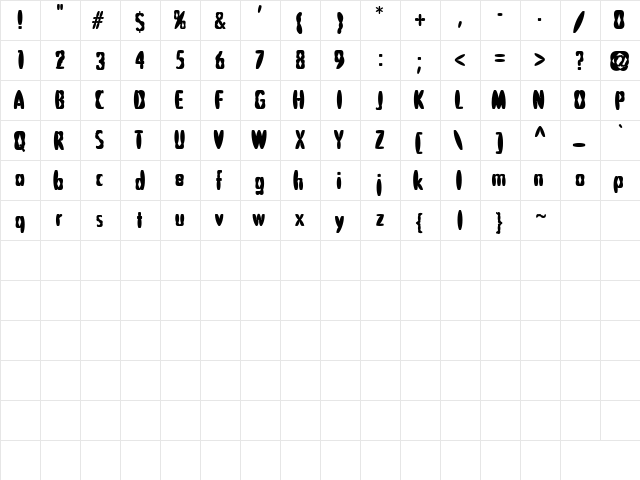
PuffedRiceBlack Regular Font Preview
PuffedRiceBlack Regular
PuffedRiceBlack Regular Font Details
Design Context for PuffedRiceBlack Typeface
PuffedRiceBlack is a composed and adaptable typeface that performs quietly and consistently across a wide range of design contexts.